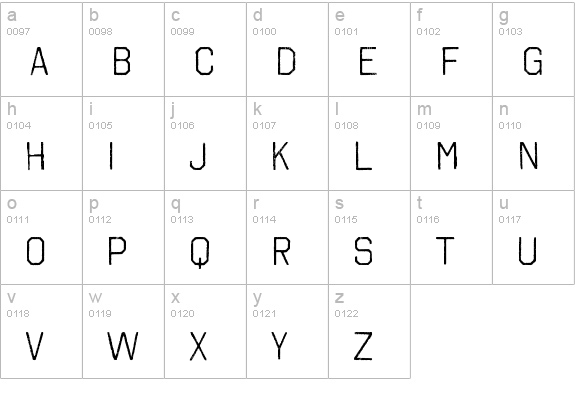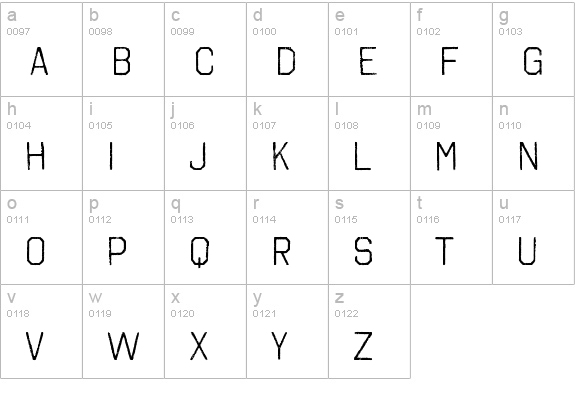
Octin Vintage A Rg Font Details
Octin Vintage A Rg font is a charming and elegant typeface that exudes a timeless appeal with its vintage-inspired design. Its refined letterforms and classic styling make it an excellent choice for a wide range of design projects, from branding to editorial design. The font's clean lines and sophisticated details add a touch of sophistication to any project, while its versatility allows it to be used in various contexts. What makes Octin Vintage A Rg font even more appealing is that it is available for free download at FontsMarket.com. This means that you can easily access this high-quality font without any cost, making it a valuable addition to your font library. Whether you're a professional designer looking for a reliable typeface or a hobbyist seeking to enhance your creative projects, Octin Vintage A Rg font is a fantastic choice that combines style, functionality, and accessibility in one package.